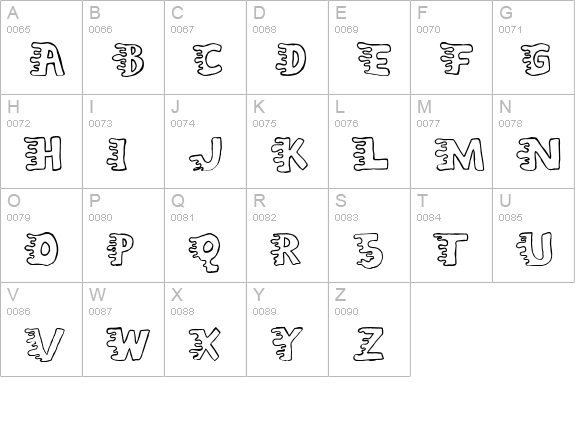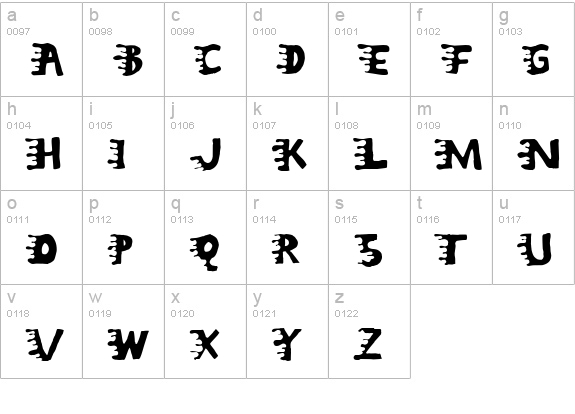
Liquidy Bulbous Font Details
Liquidy Bulbous font is a whimsical and playful typeface that exudes a sense of fun and creativity. Its fluid and rounded design gives it a unique and eye-catching appearance that is perfect for a variety of creative projects. The letters seem to dance on the page, adding a touch of personality to any text. This font is not only visually appealing but also versatile, making it suitable for a wide range of design applications, such as posters, headlines, logos, and more. Whether you're looking to add a touch of quirkiness to your designs or simply want to stand out from the crowd, Liquidy Bulbous font is sure to make a statement. The best part is that Liquidy Bulbous font is available for free download at FontsMarket.com. So go ahead and unleash your creativity with this delightful and charming typeface!